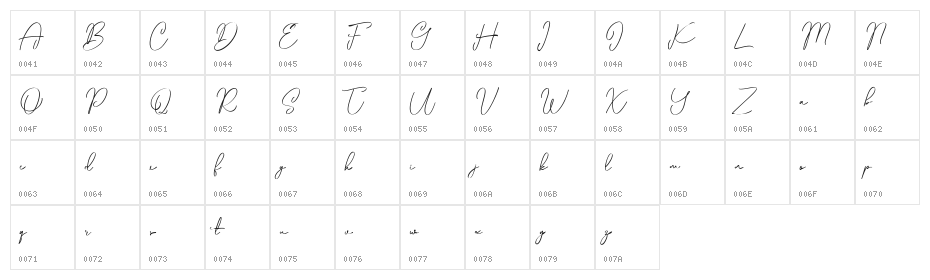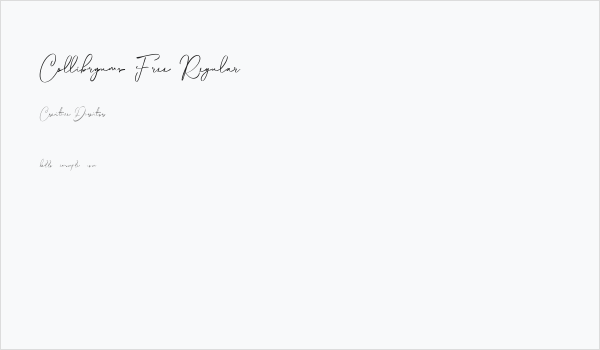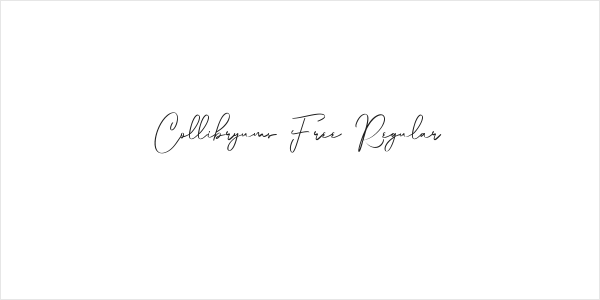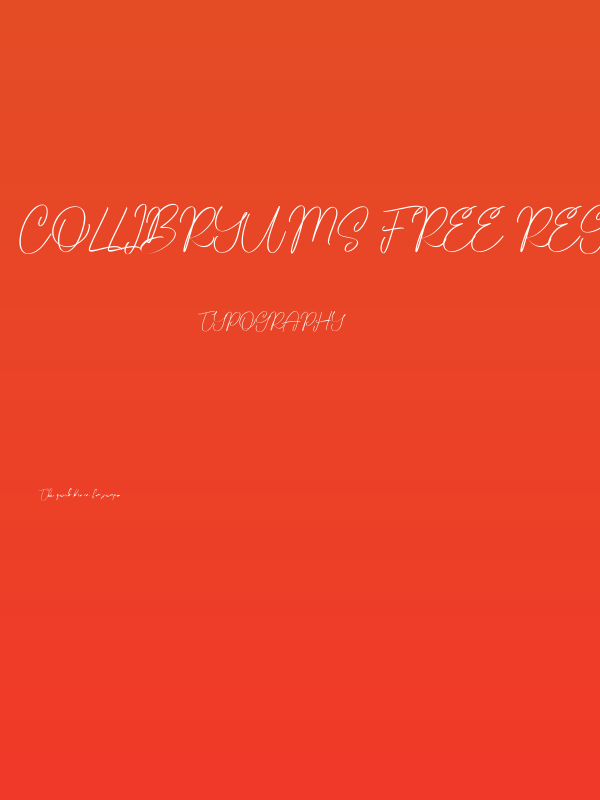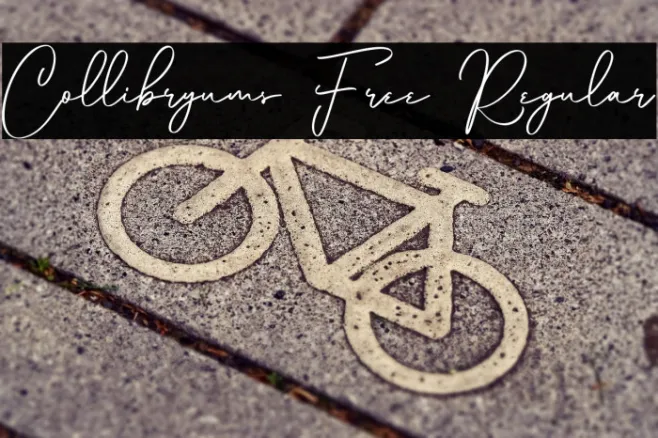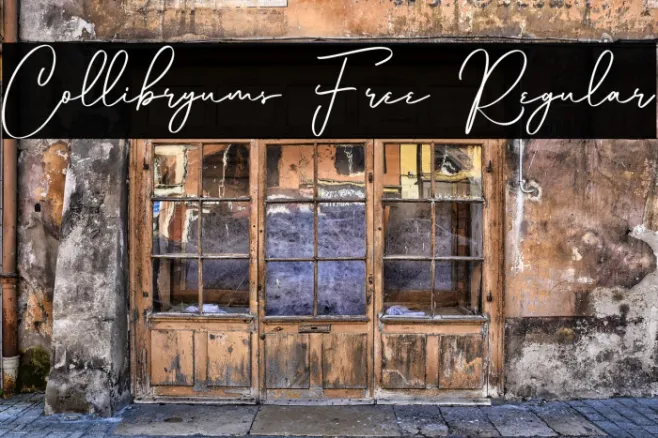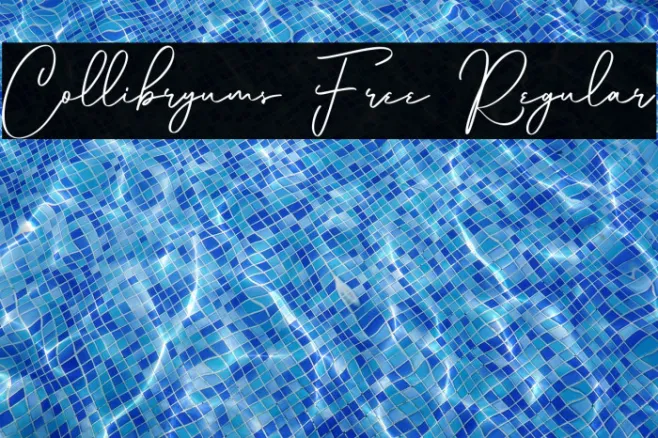
Collibryums Free Regular Font
Collibryums Free Regular Description
This font features an elegant and flowing script style, characterized by its smooth, cursive letterforms that mimic the fluidity of handwriting. The uppercase letters are tall and graceful, with sweeping curves and delicate loops, while the lowercase letters maintain a consistent flow, enhancing readability. The overall design is airy and light, with a sense of sophistication and charm. The font's thin strokes and high contrast between thick and thin lines add to its refined appearance, making it suitable for formal and decorative purposes.
| Proposed Projects | Ideal for wedding invitations, elegant branding, greeting cards, and luxury packaging. |